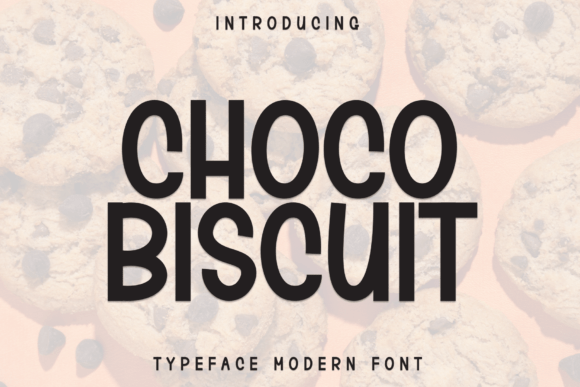
Introducing Choco Biscuit Font: The Perfect Blend of Simplicity and Friendliness
In the world of typography, fonts play a crucial role in conveying the tone and personality of a brand. A well-designed font can elevate a brand’s visual identity, making it more relatable and memorable to its audience. One such font that has gained significant attention in recent times is the Choco Biscuit Font. This casual and neat display font has been making waves in the design community, and for good reason. In this article, we’ll delve into the features, benefits, and uses of the Choco Biscuit Font, and explore why it’s becoming a favorite among designers.
What is Choco Biscuit Font?
Choco Biscuit Font is a modern display font that embodies the perfect blend of simplicity and friendliness. Its clean lines, balanced letterforms, and subtle rounded edges give it a unique and approachable vibe. This font is designed to capture the essence of modern handwritten typography with a polished finish, making it ideal for a wide range of design applications.
Key Features of Choco Biscuit Font
- Clean Lines: The font features clean lines that give it a crisp and modern look.
- Balanced Letterforms: The letterforms are carefully crafted to ensure balance and harmony, making the font easy to read.
- Subtle Rounded Edges: The subtle rounded edges add a touch of warmth and friendliness to the font.
- Modern Handwritten Typography: The font captures the essence of modern handwritten typography with a polished finish.
Benefits of Using Choco Biscuit Font
The Choco Biscuit Font offers several benefits to designers and brands. Some of the key benefits include:
- Versatility: The font is versatile and can be used for a wide range of design applications, including branding, headlines, packaging, and digital content.
- Warm and Inviting: The font adds a warm and inviting touch to any design, making it perfect for brands that want to convey a friendly and approachable image.
- Clarity and Charm: The font delivers clarity and charm in equal measure, making it easy to read and visually appealing.
Uses of Choco Biscuit Font
The Choco Biscuit Font is ideal for a wide range of design applications, including:
- Branding: The font is perfect for brands that want to convey a friendly and approachable image.
- Headlines: The font is ideal for headlines, as it adds a touch of warmth and friendliness to the text.
- Packaging: The font can be used for packaging design, adding a touch of personality to the packaging.
- Digital Content: The font is perfect for digital content, including social media posts, blog articles, and website headers.
Why Choose Choco Biscuit Font?
There are several reasons why designers and brands choose the Choco Biscuit Font. Some of the key reasons include:
- Unique and Approachable: The font has a unique and approachable vibe that sets it apart from other fonts.
- Easy to Read: The font is easy to read, making it perfect for digital content and headlines.
- Versatile: The font is versatile and can be used for a wide range of design applications.
In conclusion, the Choco Biscuit Font is a versatile and modern display font that offers a unique blend of simplicity and friendliness. Its clean lines, balanced letterforms, and subtle rounded edges make it perfect for a wide range of design applications. Whether you’re a designer or a brand looking for a font that adds a warm and inviting touch to your design, the Choco Biscuit Font is an excellent choice.
- What is the Choco Biscuit Font? The Choco Biscuit Font is a modern display font that combines simplicity with a friendly and approachable vibe.
- What are the key features of the Choco Biscuit Font? The font features clean lines, balanced letterforms, and subtle rounded edges.
- What are the benefits of using the Choco Biscuit Font? The font offers several benefits, including versatility, a warm and inviting touch, and clarity and charm.